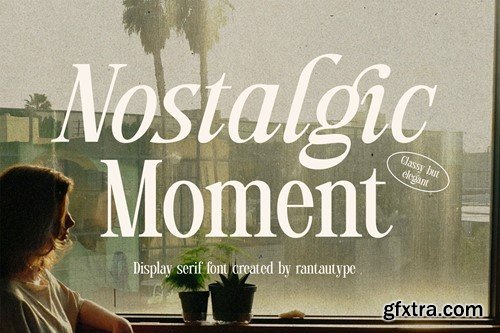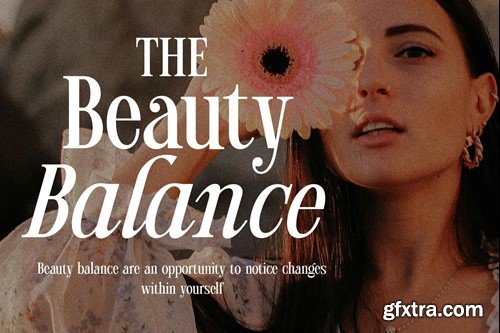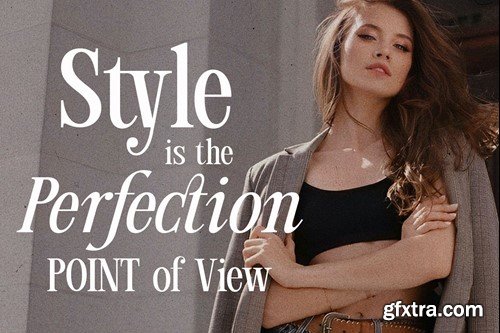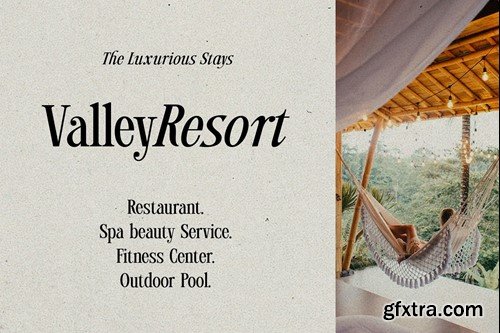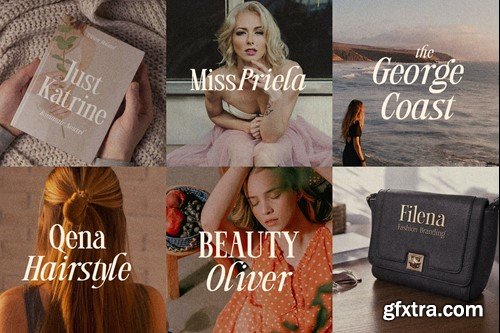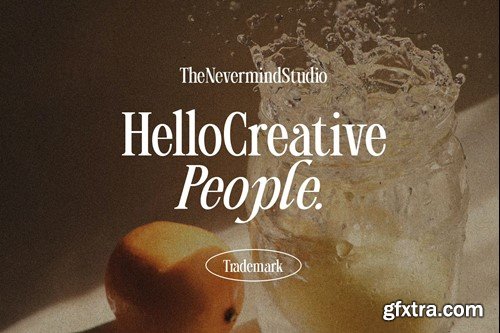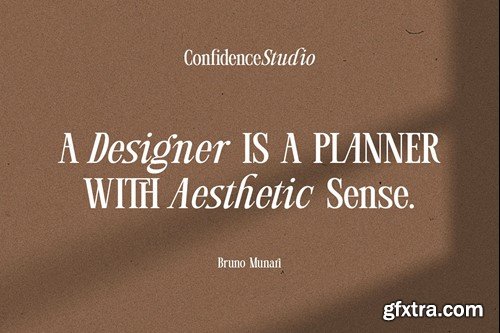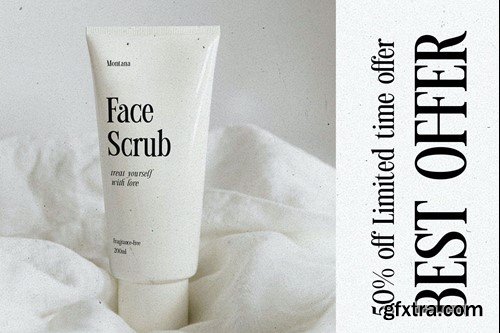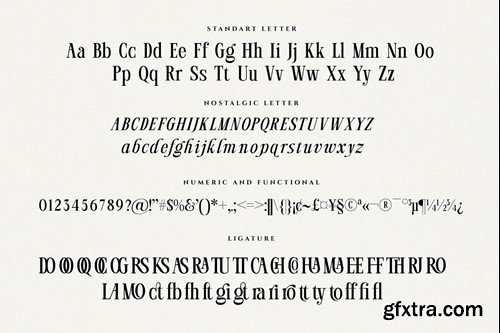
Nostalgic Moment - is a glamour eighties magazine inspired serif look classy but elegant. Nostalgic Moment display serif font that embraces elegance and grace, both come in two versions one with more contrast and crisper than the other. In true Eighties style, combination the reguler and italic make nostalgic, mix and match them to create eye-catching effects. With its versatility and contemporary appeal. Nostalgic Moment come with ligature and multilinggual support. Nostalgic Moment is a beautiful choice for any creative endeavor, creating elegant, modern, chic, lifestyle design such as logos, title, cover, branding, invitations, wedding designs, display and magazine, social media posts, advertisements, printed quotes, product packaging, product designs, labels, photography, watermarks, special events and more. Now you can using Nostalgic Moment to make a stunning design. Features: File include: Langguange support: Afrikaans, Albanian, Asu, Basque, Bemba, Bena, Breton, Catalan, Chiga, Cornish, Danish, Dutch, English, Estonian, Faroese, Filipino, Finnish, French, Friulian, Galician, German, Gusii, Icelandic, Indonesian, Irish, Italian, Kabuverdianu, Kalenjin, Kinyarwanda, Luo, Luxembourgish, Luyia, Machame, Makhuwa-, Meetto, Makonde, Malagasy, Manx, Morisyen, Northv Ndebele, Norwegian, Bokmål, Norwegian, , Nynorsk, Nyankole, Oromo, Portuguese, Quechua, Romansh, Rombo, Rundi, Rwa, Samburu, Sango, Sangu, Scottish, Gaelic, Sena, Shambala, Shona, Soga, Somali, Spanish, Swahili, Swedish, Swiss, German, Taita, Teso, Uzbek (Latin), Volapük, Vunjo, Zulu Thank you for visit our store and Hope you enjoy our font!!